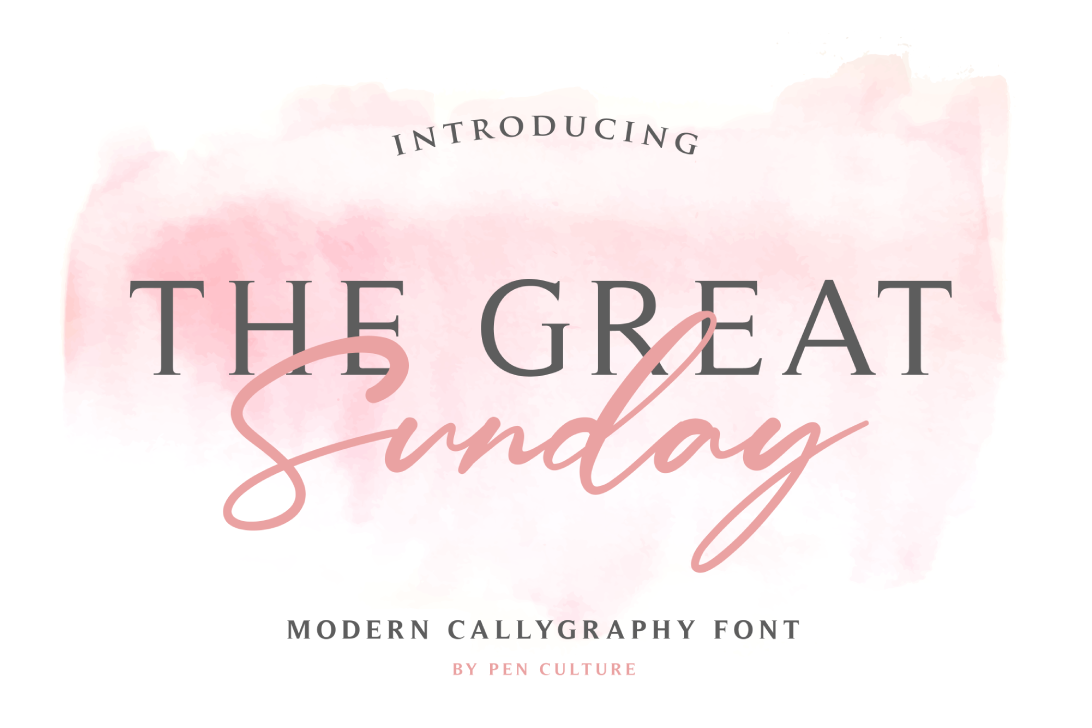
TheGreatSunday-Regular
introducing the lovely new The Great Sunday Calligraphy Font!
The Great Sunday inspired by the beauty of Sunday morning in a village. The Great Sunday also includes full set of uppercase and lowercase letters, multilingual symbols, numerals, punctuation, and 72 beautiful ligature. The font has smooth and beautiful curves, so would be perfect for all types
- The Great Sunday includes capital and lowercase letters, alternates, and 72 Ligatures
- Numbers + punctuation
- Foreign language support